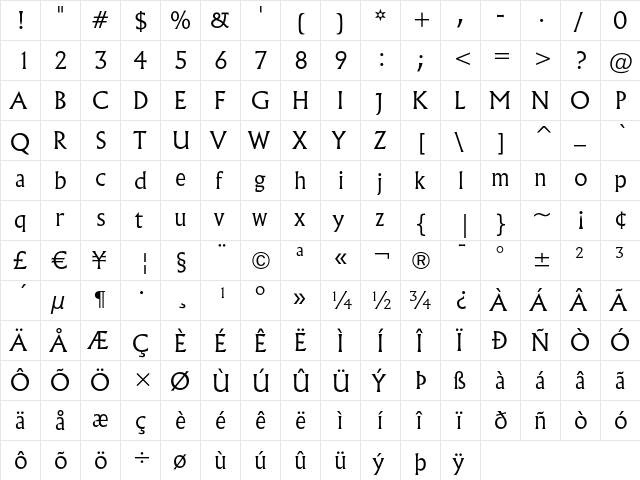
Flareserif 821 Light
Design Context for Flareserif 821 Typeface
Flareserif 821 carries the refined structure of traditional serif typography, with bracketed terminals and considered proportions that communicate credibility and craft. The delicate stroke weight brings airiness and refinement to layouts.
Pro Tip: Set Flareserif 821 at slightly larger body copy sizes than you would a regular-weight serif to compensate for its delicate stroke contrast.